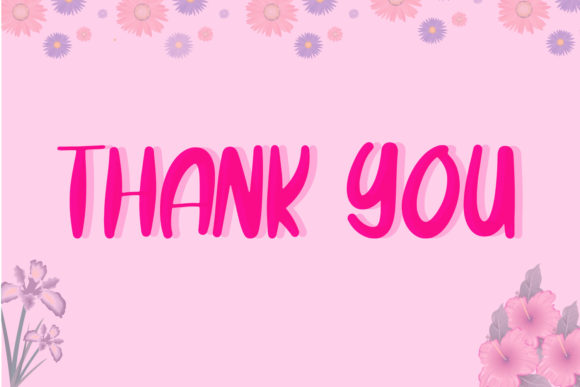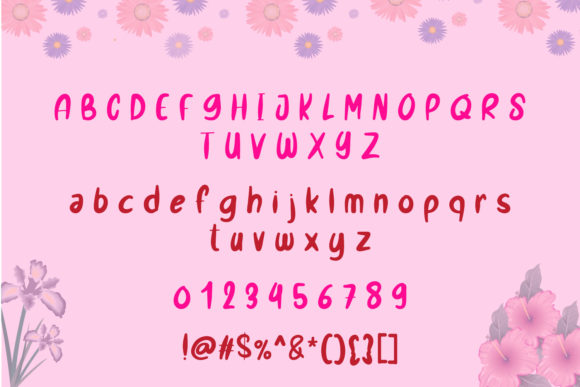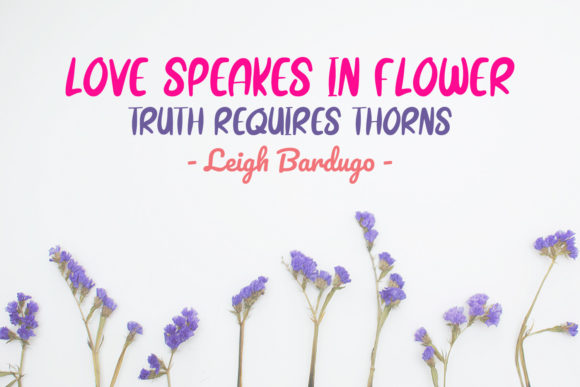
About Cutter Font
Cutter is a jolly and readable paint brushed handwritten font. Its natural and unique style makes it incredibly fitting to a large pool of designs. The only limit is your imagination!